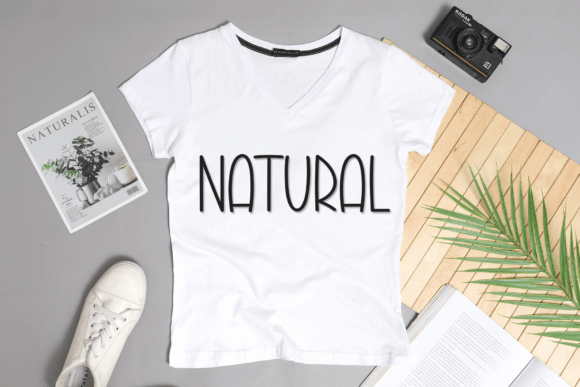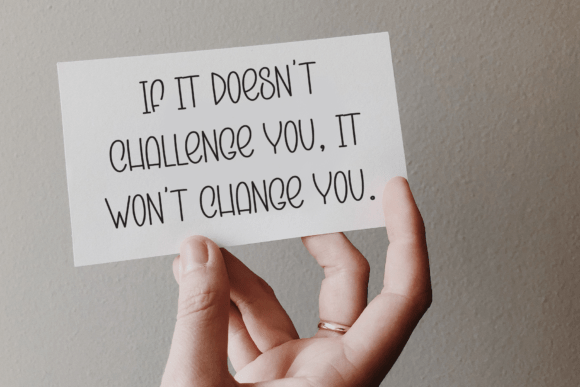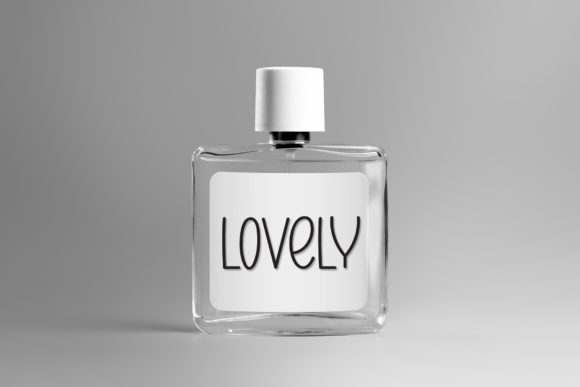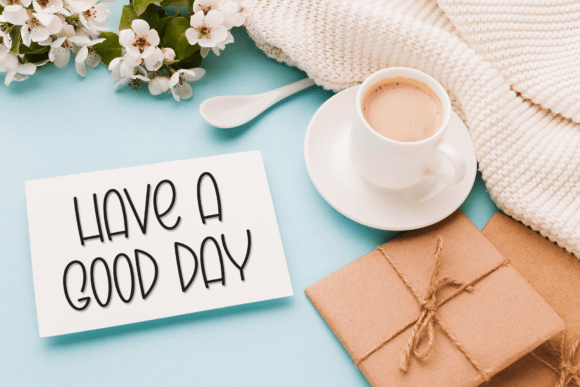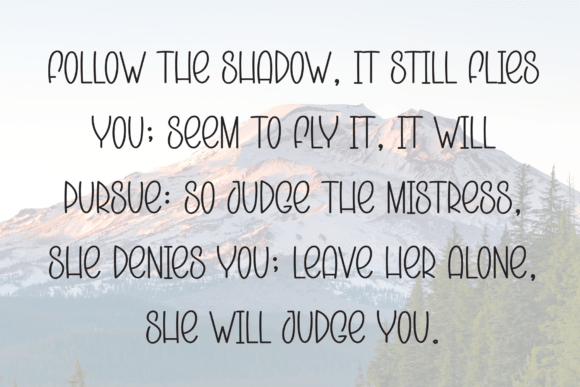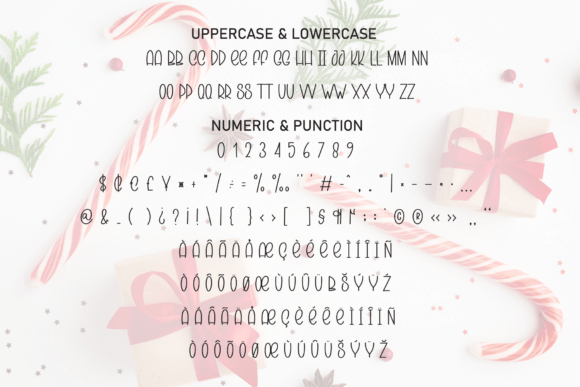
Candy Stacked Font: A Charming and Welcoming Handwritten Font
Are you looking for a font that can add a touch of whimsy and delight to your designs? Look no further than the Candy Stacked Font, a charming and welcoming handwritten font that exudes a delightful appeal. Its unique and playful nature makes it a perfect match for crafting captivating wedding invitations, expressive cards, and other designs that require a splash of fun.
A Font that Infuses Happiness and Warmth
The Candy Stacked Font is designed to draw in views with its endearing features, infusing every piece of work with a touch of happiness and warmth. Its playful and charming nature makes it perfect for designers and crafters who want to create designs that are not only visually appealing but also convey a sense of joy and friendliness.
One of the key features of the Candy Stacked Font is its suitability for wedding invitations and cards. The font’s playful and whimsical nature makes it perfect for couples who want to add a touch of fun and personality to their wedding stationery. Whether you’re designing a formal or informal wedding invitation, the Candy Stacked Font is sure to make it stand out.
Unique and Playful Design
The Candy Stacked Font features a unique and playful design that sets it apart from other fonts. Its handwritten nature gives it a personal and friendly touch, making it perfect for designs that require a human touch. The font’s playful features, such as its irregular lettering and whimsical flourishes, add to its charm and make it a joy to use.
Versatile and Easy to Use
The Candy Stacked Font is not just limited to wedding invitations and cards. Its versatility makes it suitable for a wide range of designs, including party invitations, birthday cards, and other creative projects. The font is also easy to use, making it perfect for designers and crafters of all skill levels.
Key Features of the Candy Stacked Font
- Charming and welcoming handwritten font
- Unique and playful nature
- Perfect for wedding invitations, cards, and other designs that require a splash of fun
- Infuses happiness and warmth into every piece of work
Tips for Using the Candy Stacked Font
Here are some tips for using the Candy Stacked Font in your designs:
- Use it for wedding invitations and cards to add a touch of whimsy and fun
- Pair it with other fonts to create a unique and interesting design
- Use it for party invitations and birthday cards to create a fun and playful design
In conclusion, the Candy Stacked Font is a charming and welcoming handwritten font that is perfect for designers and crafters who want to add a touch of whimsy and delight to their designs. Its unique and playful nature makes it a perfect match for crafting captivating wedding invitations, expressive cards, and other designs that require a splash of fun. With its versatility and ease of use, the Candy Stacked Font is sure to become a favorite in your design arsenal.